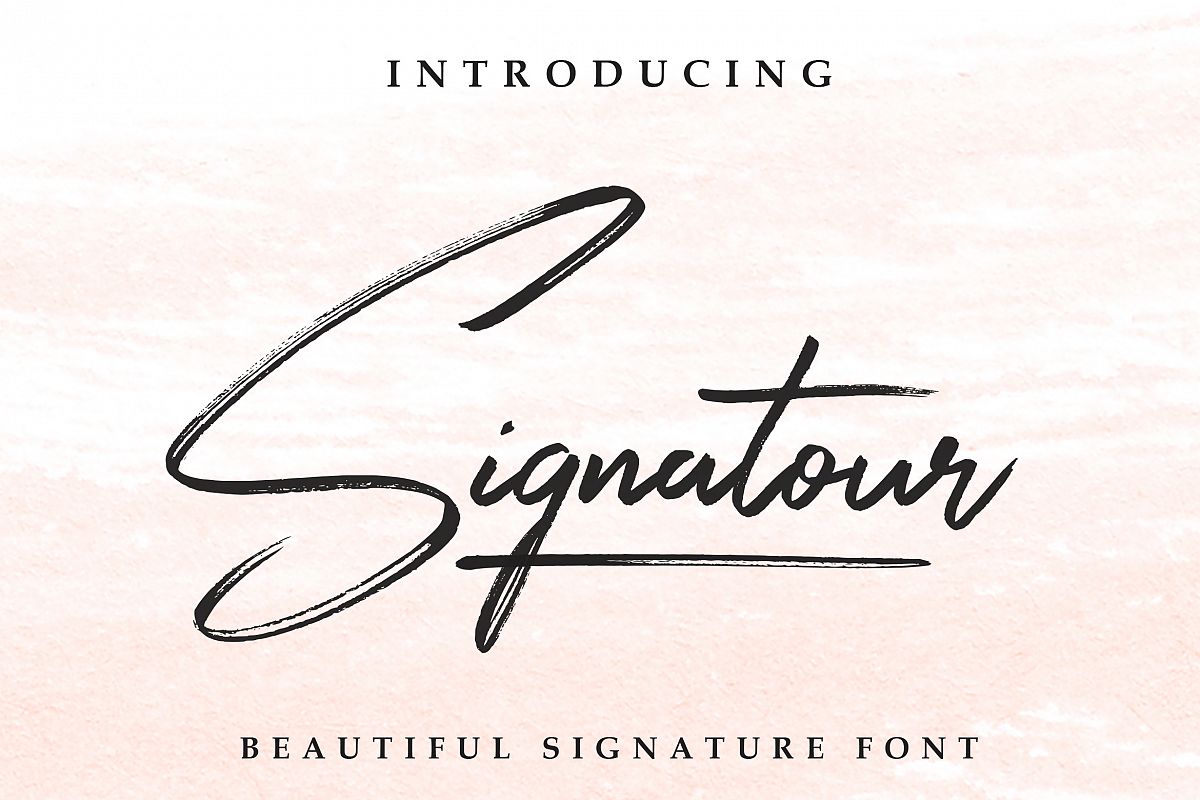
Signatour
Signatour Script is modern script that perfect for photography,
signature, branding. It is so beautiful and classy, natural and strong.
• Ligature, Stylistic Alternates